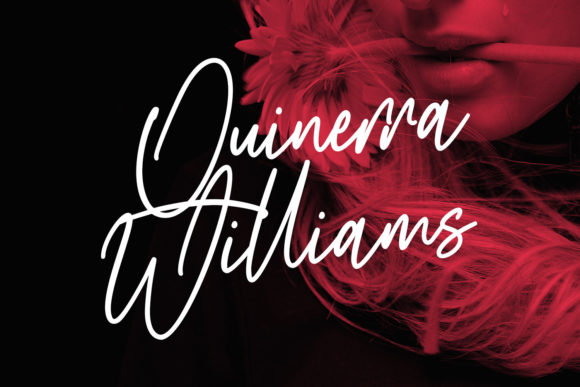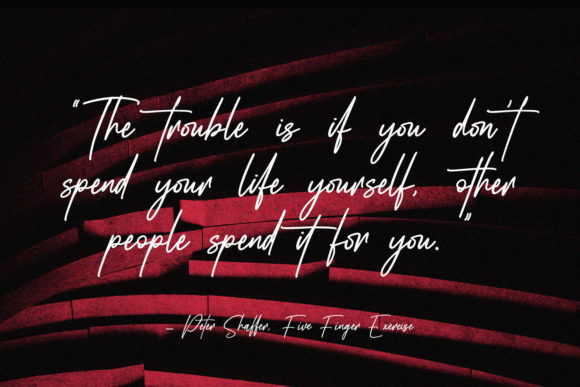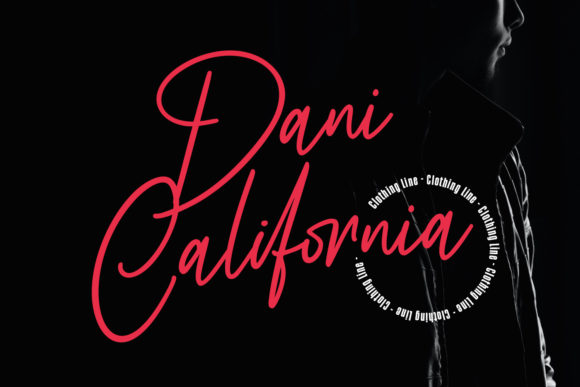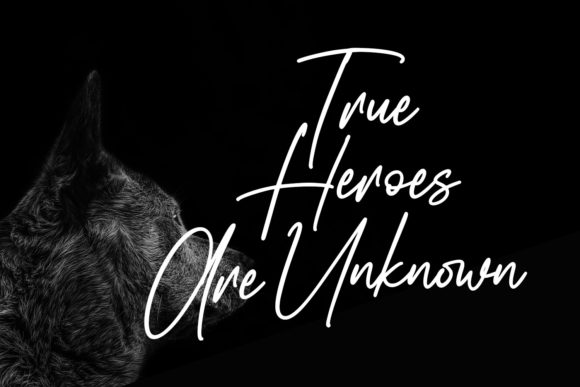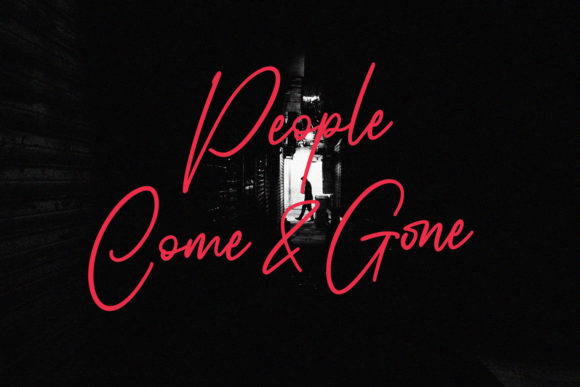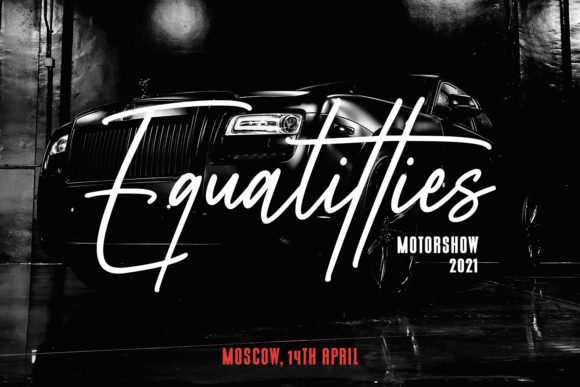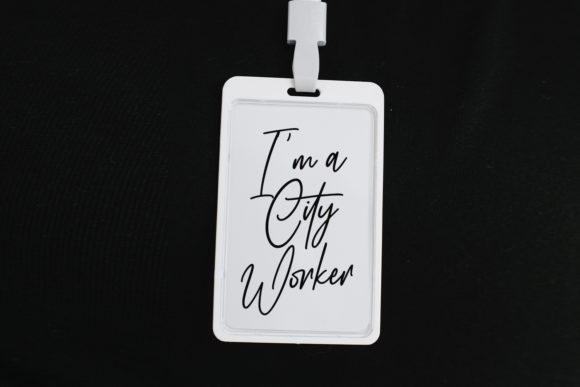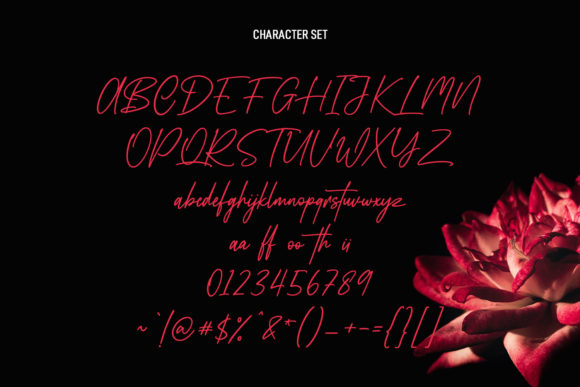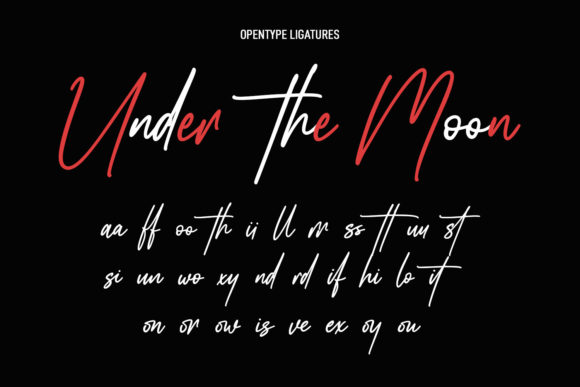
Lafoyettes Script Font
About Lafoyettes Script Font
Lafoyettes Script is a relaxed and adaptable handwritten font. Whatever the topic, this font will be a wonderful asset to your font library, as it has the potential to enhance any creation.